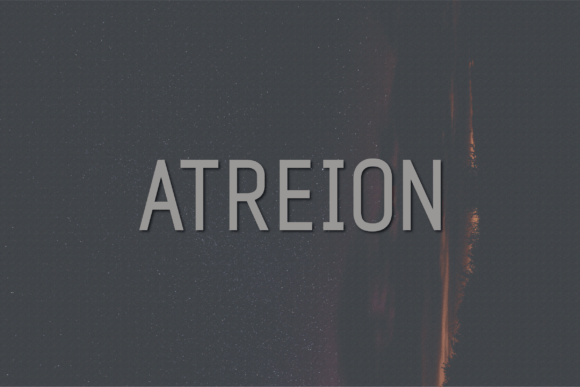
Unveiling the Timeless Elegance of Atreion Font
As a designer, there’s no greater joy than seeing a project come to life with the perfect font. Remember that moment when you finally stumbled upon the perfect typography for your logo, and everything fell into place? It’s a feeling that never gets old, and for many of us, it’s what drives our creativity.
Enter Atreion Font, a sophisticated sans serif typeface that’s poised to become your new go-to choice. With its harmonious blend of upper characters, numbers, punctuation, and symbols, Atreion Font offers a versatile solution for a wide range of design projects, from logos and wedding invitations to advertisements and magazine content. As a designer, you’ll appreciate the elegance and sophistication that Atreion Font brings to your work, making it a valuable addition to your design arsenal.
Atreion Font Key Features
- Unique Characteristics: Atreion Font features a unique blend of modern and classic design elements, with clean lines, geometric shapes, and subtle flourishes that give it a sophisticated and professional look.
Atreion Font Review
Overall, I think the Atreion Font has a lot of potential, but it also has some limitations. Here’s my honest take on it.
- The Atreion Font has a unique and modern aesthetic that could be perfect for a wide range of design projects.
- The font’s bold and condensed design makes it great for headlines and titles.
- The font is highly customizable, with a wide range of weights and styles available.
- The Atreion Font can be quite difficult to read in smaller sizes, which could be a problem for body text.
- The font’s condensed design can make it hard to distinguish between certain letters, such as ‘i’ and ‘l’.
- The font’s uniqueness can also make it harder to pair with other fonts, which could limit its versatility.
While the Atreion Font has some great qualities, its limitations hold it back from being a truly great font. With some refinement and tweaking, I think it could be a real standout in the design world.
Atreion font is a clean and modern sans-serif font that works well for:
- Corporate branding and marketing materials
- Business presentations and reports
For the most effective use of Atreion font, use it consistently throughout your design and adjust the font size and style to create visual hierarchy.